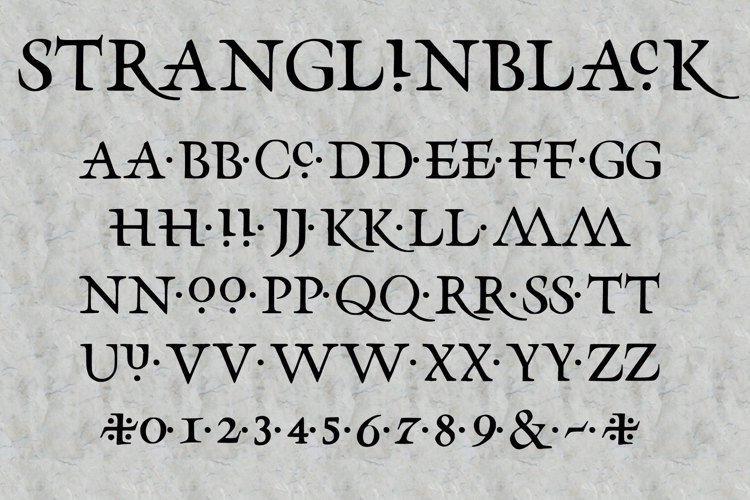
Stranglinblack Font
About Stranglinblack Font
More info from Buzzblack
Based on the Stranglers 1980 album The Gospel According To The Meninblack.
Original calligraphy by Jim Gibson.